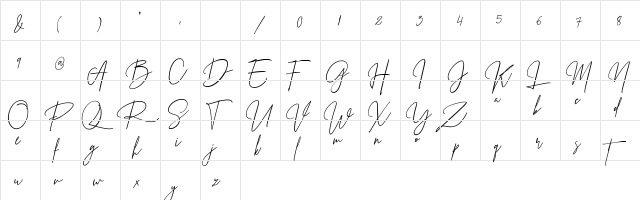
Prestige Signature Script Demo Regular
Design Context for Prestige Signature Script Demo Typeface
Prestige Signature Script Demo brings a calligraphic fluidity to the page — its connecting strokes and expressive curves give it an unmistakably human quality.
Font Pairing: Combine Prestige Signature Script Demo with a simple geometric sans for maximum contrast — the tension between flowing curves and clean structure is a classic typographic pairing.
Pro Tip: Use Prestige Signature Script Demo for short runs of text — names, titles, or taglines. Extended body copy in script faces tires the eye quickly.